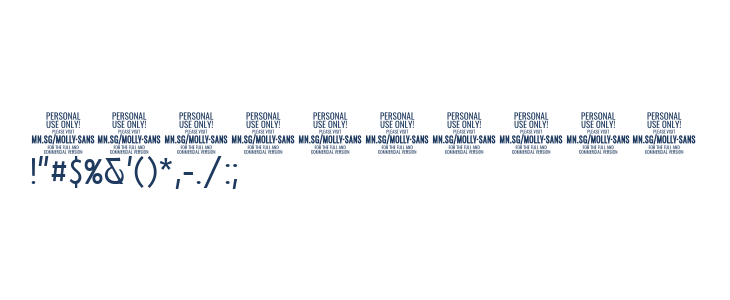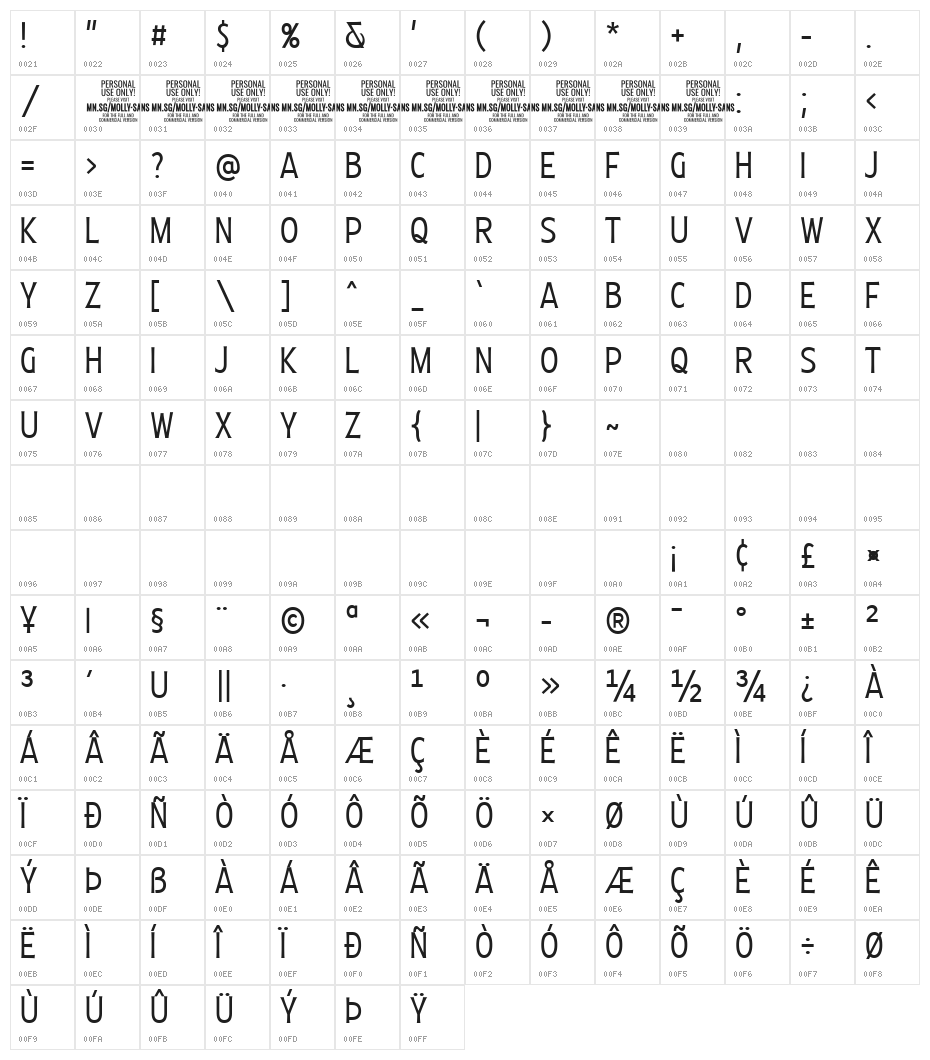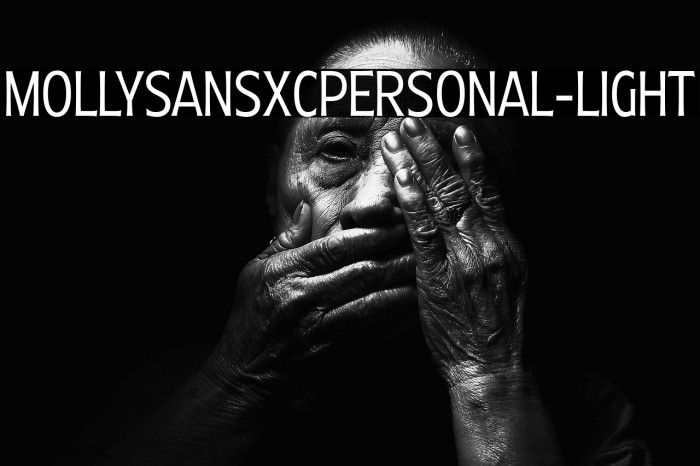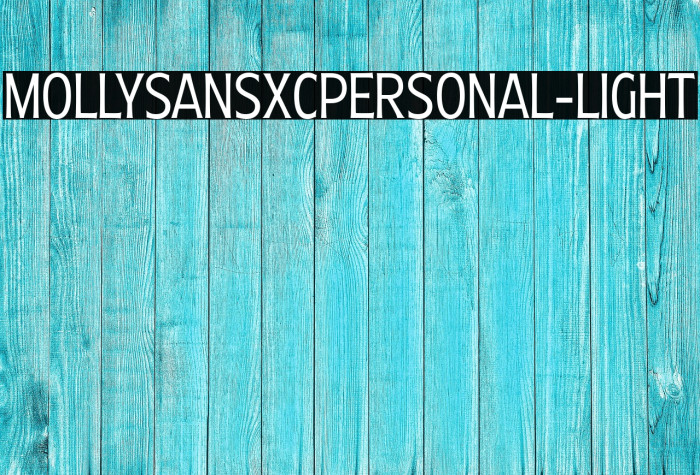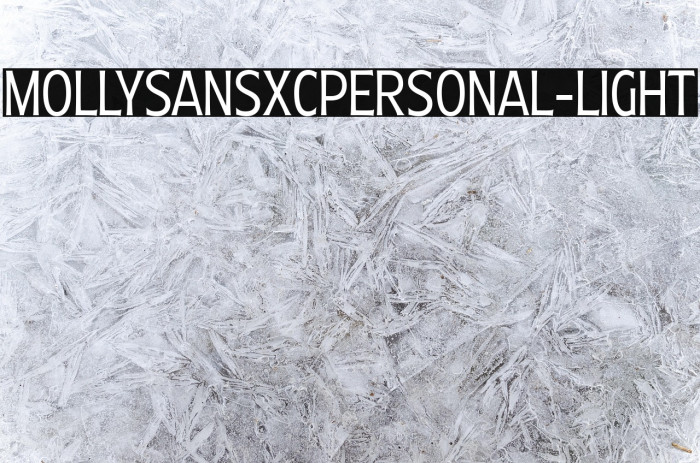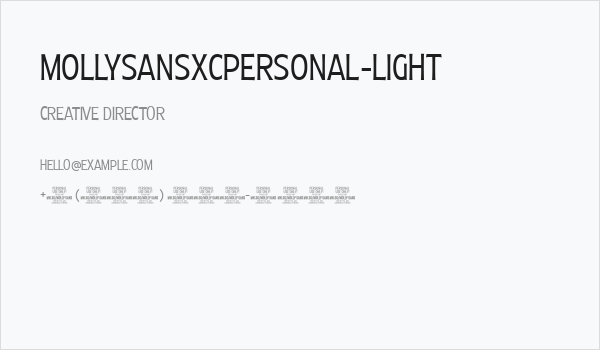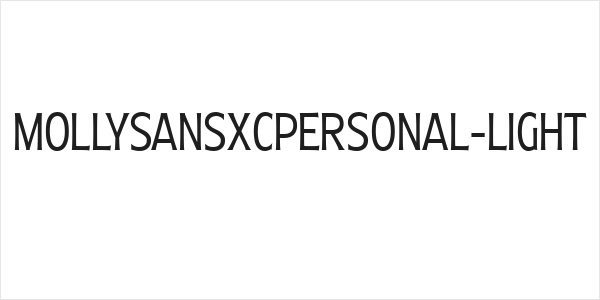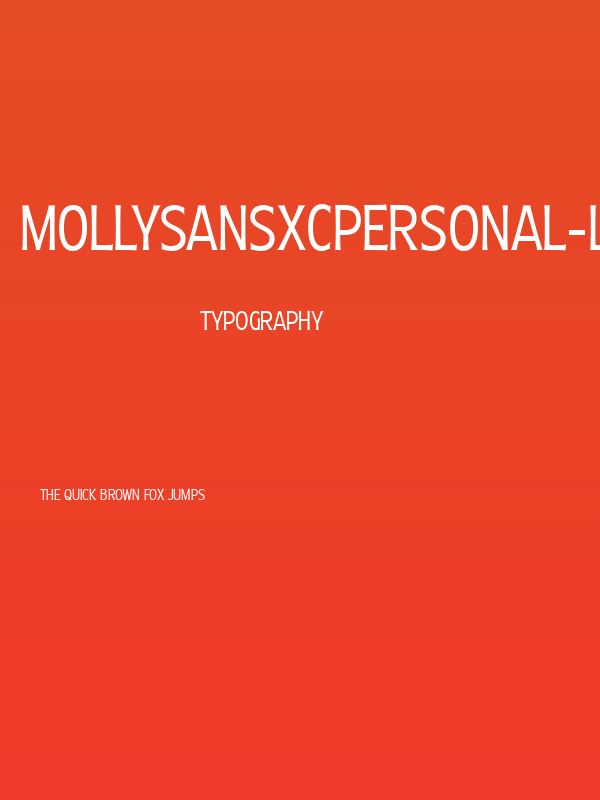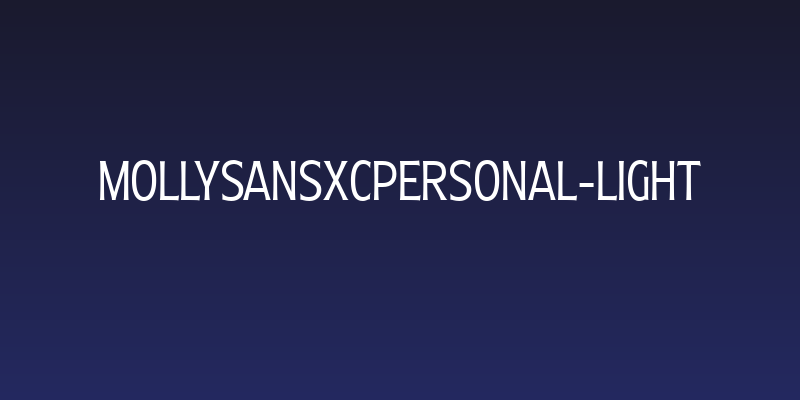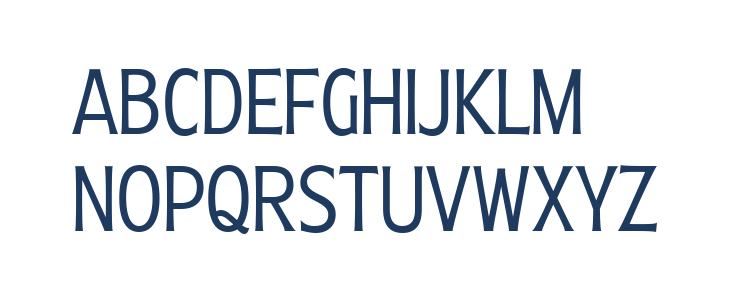
MollySansXCPERSONAL-Light Font
MollySansXCPERSONAL-Light Description
This font features a clean and modern sans-serif style with a light weight, offering a sleek and contemporary look. The characters are slightly condensed, providing a compact appearance while maintaining readability. The strokes are consistent with medium contrast, giving a balanced and harmonious feel. The design is straightforward yet elegant, making it suitable for a variety of applications. The uppercase and lowercase letters are well-proportioned, and the numerals are clear and distinct. Special characters are included, enhancing its versatility for different uses.